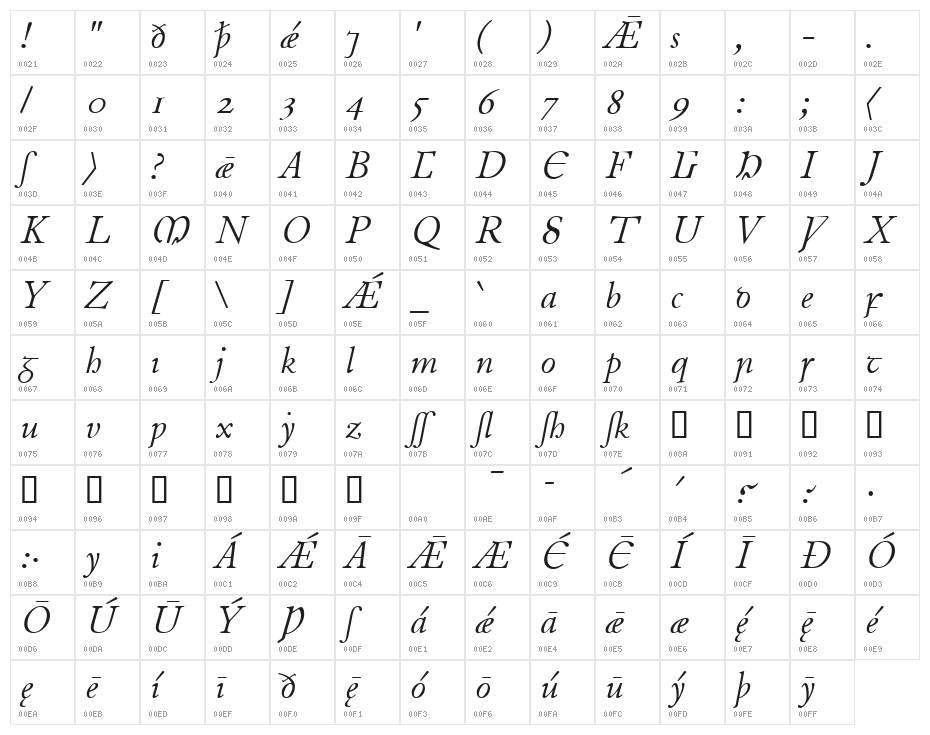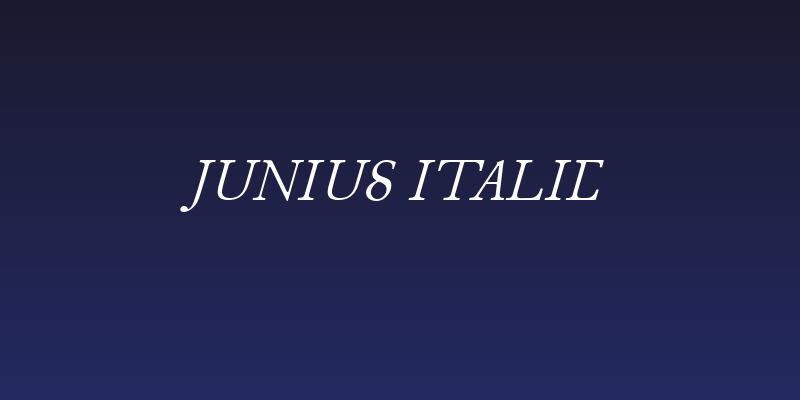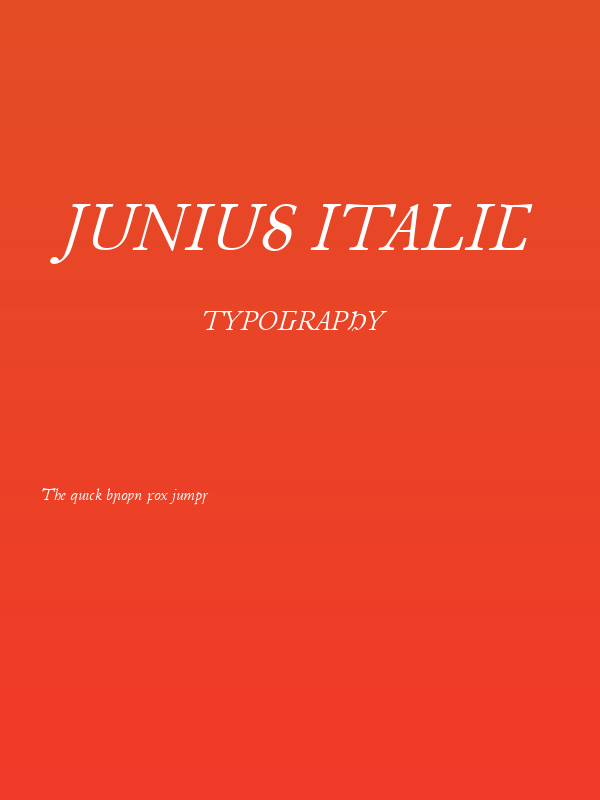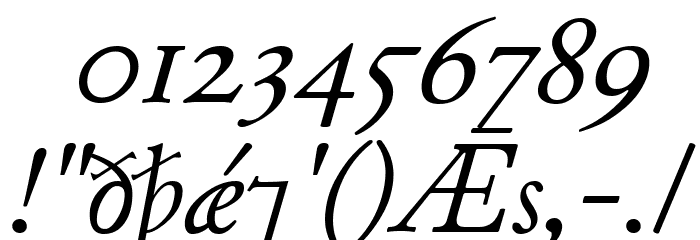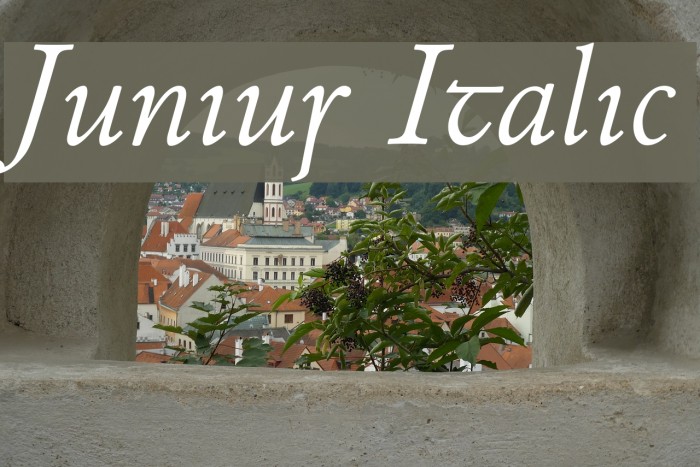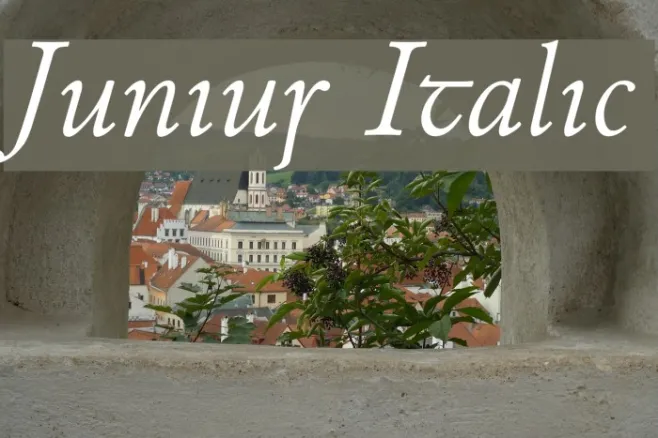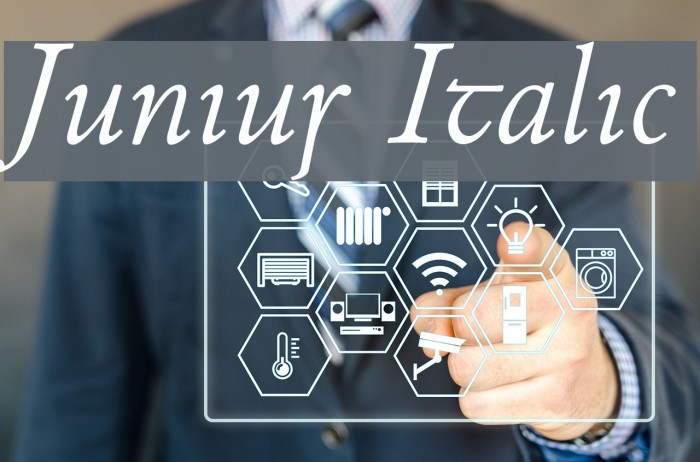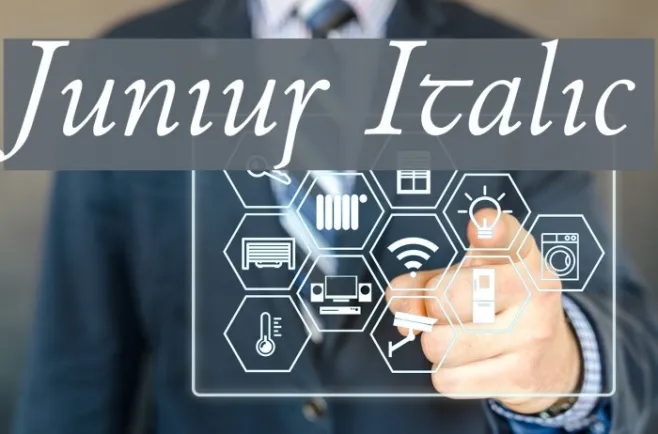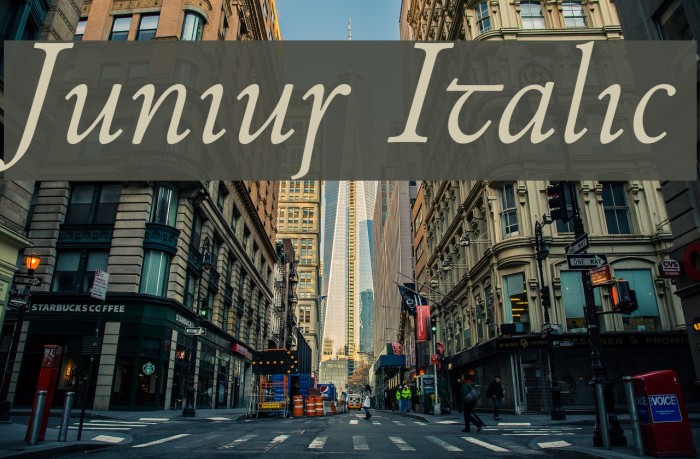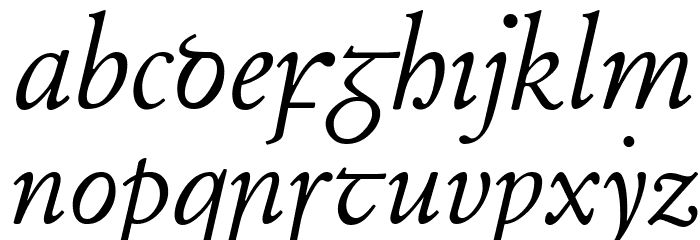
Junius Italic Font
Junius Italic Description
This font features a distinctive italic style with elegant, flowing curves and a classic serif structure. The uppercase letters are slightly more angular, providing a strong contrast to the softer, more rounded lowercase characters. The numerals are consistent with the overall style, maintaining the same elegant curves and serifs. Special characters are well-integrated, offering a cohesive look across all glyphs. The font exudes a sense of sophistication and timelessness, making it suitable for a variety of formal and creative applications.